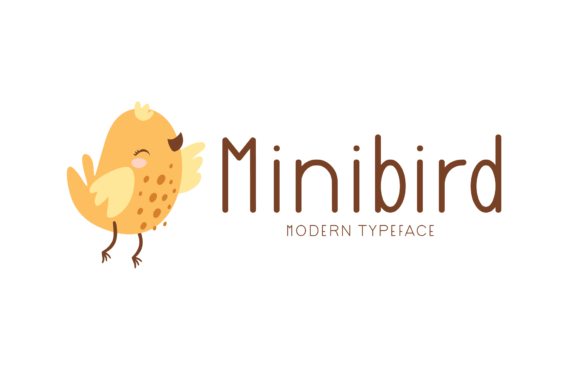
Introducing Minibird Font, the captivating display font that will make your designs sing with joy. Step into a world where typography takes center stage and let Minibird be your guide.
With its adorable, friendly features, Minibird is the perfect choice for stationery, logos, print design, flyers, posters, and more! Its playful curves and cheerful charm will add a touch of whimsy to your projects, making them irresistible to your audience.
Minibird is a versatile performer that shines in both digital and print media. Its crisp, clean lines ensure readability on screens, while its unique character brings life to printed materials. Whether you're creating invitations, greeting cards, social media posts, or anything in between, Minibird is your trusty companion, ready to elevate your designs to new heights.
But Minibird is more than just a pretty face. It's a font that speaks to your emotions, evoking a sense of nostalgia, warmth, and happiness. Its playful nature invites engagement and creates a connection with your audience, leaving a lasting impression that keeps them coming back for more.
So, embark on a typographic adventure with Minibird Font. Let its charming personality captivate your audience and transform your designs into works of art. Download Minibird today and unlock a world of creative possibilities!